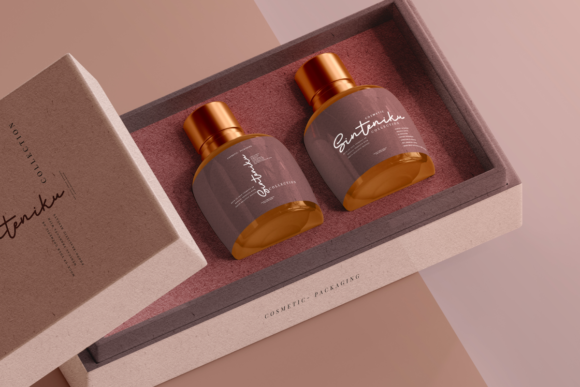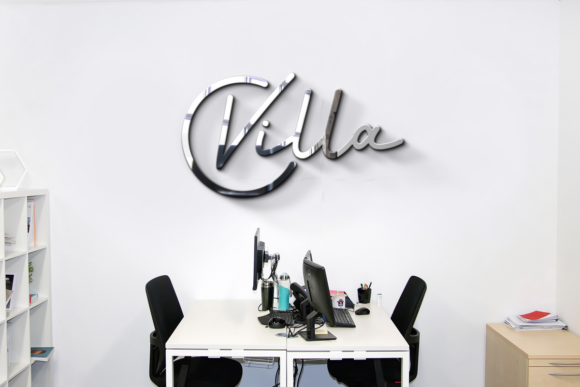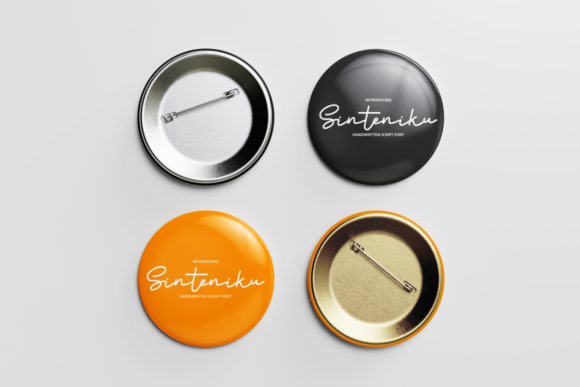
Sinteniku Font
About Sinteniku Font
Sinteniku is a thin lettered and stylish script font. Fall for its ravishing style and use it to create gorgeous wedding invitations, beautiful stationary art, eye-catching social media posts, and much more!